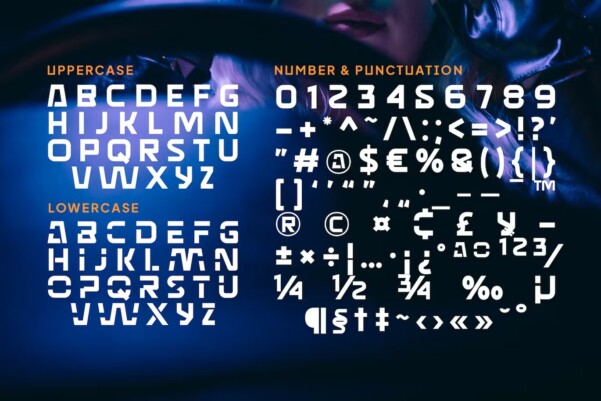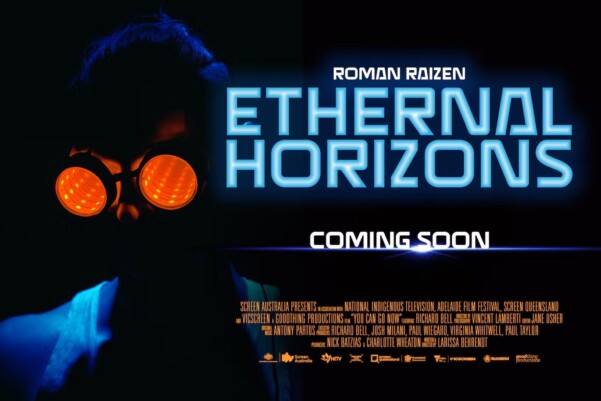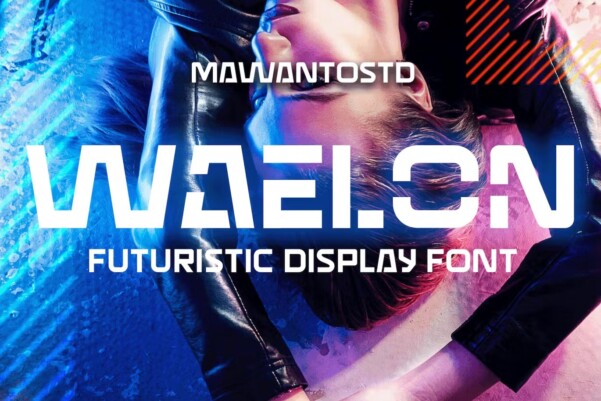
Waelon Font
Waelon Font is futuristic font. that cool for your business. This font is suitable for some project like quotes, logo, blog header, poster, banding, letter, etc…